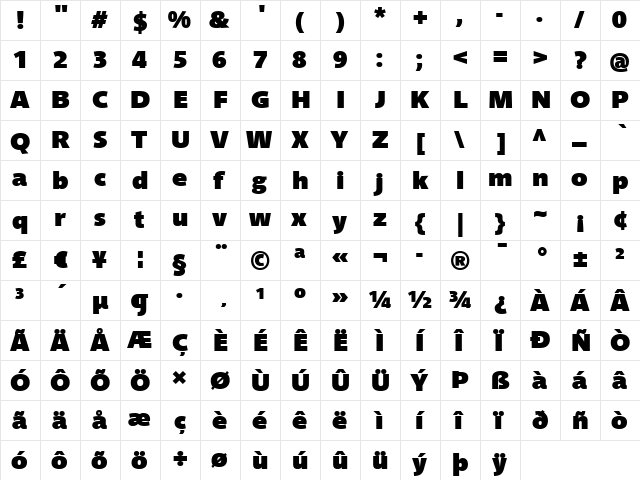
ParisineSombre Bold
| Foundry | Jean-Francois Porchez |
Design Context for ParisineSombre Typeface
ParisineSombre is a composed and adaptable typeface that performs quietly and consistently across a wide range of design contexts. The heavy weight commands attention and anchors typographic hierarchies.